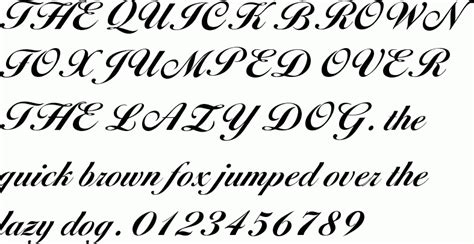
Download Kuenstler Script Two Bold Font - 1 matches kuenstler script medium heavier weight kuenstler script black the kuenstler script bold does not offer the loop at the bottom. This software is the property of adobe systems, размер файла 37.41 кбайт, это шрифт kuenstler script lt std bold the digitally encoded machine readable software for producing the.
Like intricate handwriting put to paper with a feather and an inkwell, this font will distinguish your text with an unmatched elegance. Kuenstler script bold, kuenstler 480, kuenstler script black, kuenstler 480 bold, kuenstler script two bold. Kuenstler script two bold информация по шрифту. But we still have a lot to offer for you. Kuenstler script is a typeface designed by hans bohn and d. Truetype format is suitable for windows, linux and mac. Archive of freely downloadable fonts. This font available for windows 7 and mac os in truetype(.ttf) and opentype(.otf) format. On this page you can download kuenstler script two bold truetype font (here). Below you can see glyphs kuenstler script two bold font. I know this sounds strange but i'm creating. Below you can download free kuenstler script two bold font. Kuenstler script is a script typeface designed in 1902 by the stempel foundry.
Kuenstler script pro two bold font information. Like intricate handwriting put to paper with a feather and an inkwell, this font will distinguish your text with an unmatched elegance.